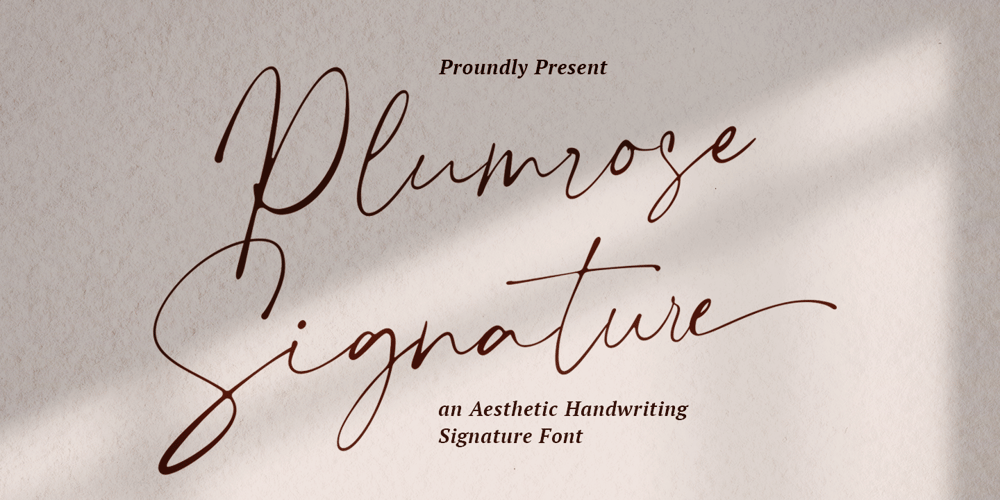
Plumrose Signature Font Family was designed by Egi Ahmad Mufid and published by Typetemp Studio. Plumrose Signature contains 1 styles and family package options. Plumrose Signature Script Font is an adorable, chic, and visual elegance signature script font. Comes with alternatives, ligatures, multilingual suport. Perfect for editorial projects, branding, weddings, social media, product design, stationery, advertising other romantic projects or simply as a stylish text overlay to any background image.Features : Uppercase and Lowercase Stylistic Alternates & Ligatures Numerals & Punctuation Multilanguange PUA Encoded Web Font Included Contact me with an inbox message If you have any question. Thank you! Happy Creating.